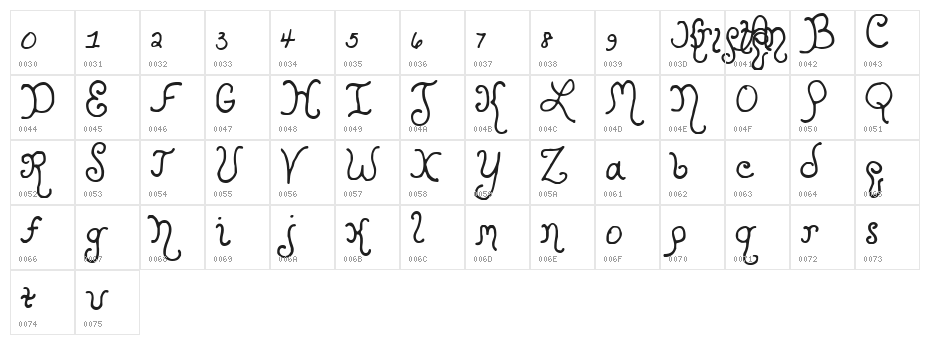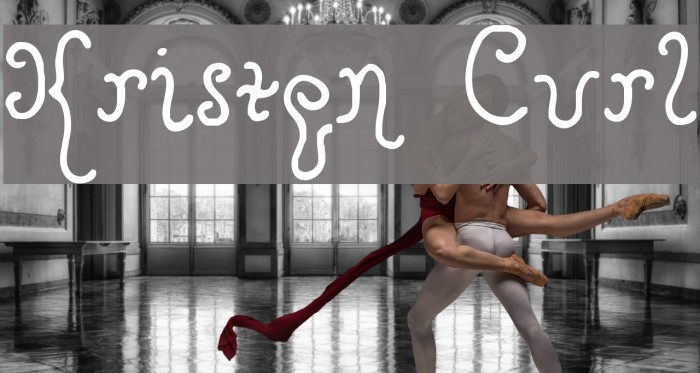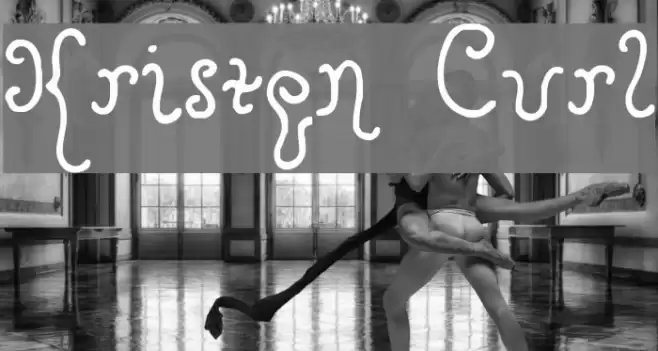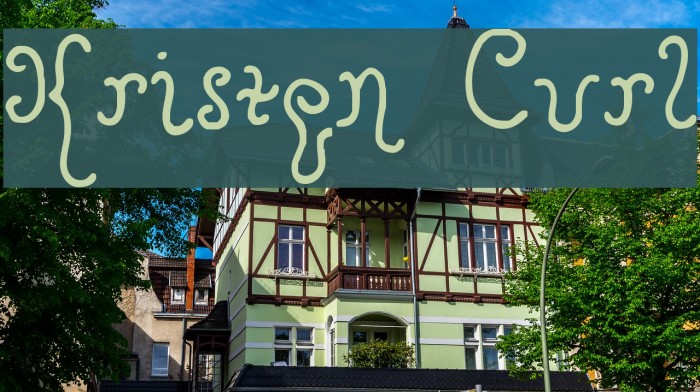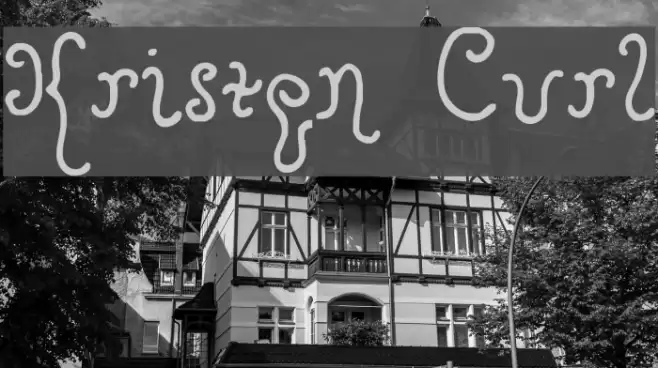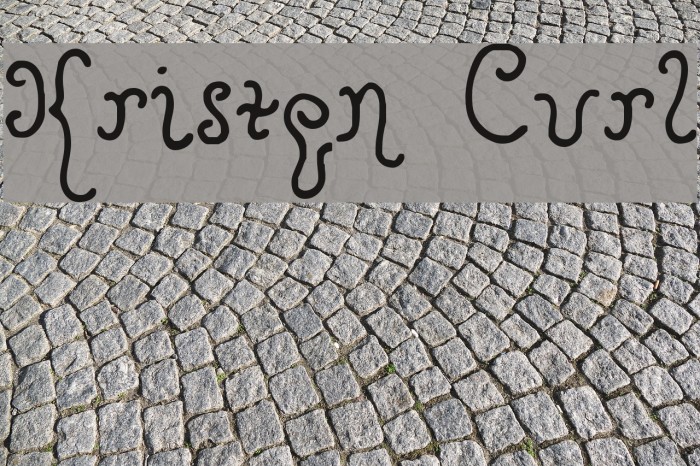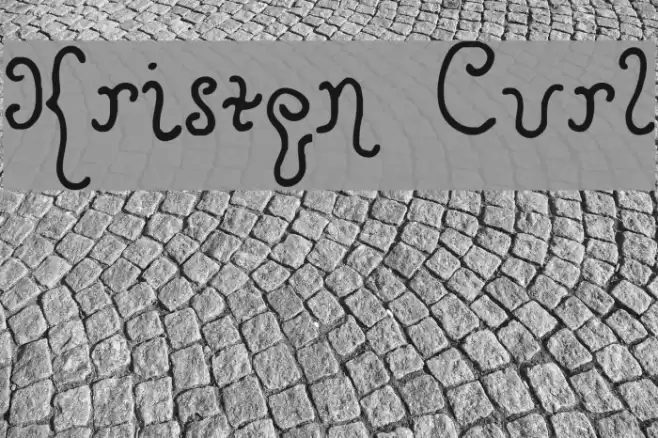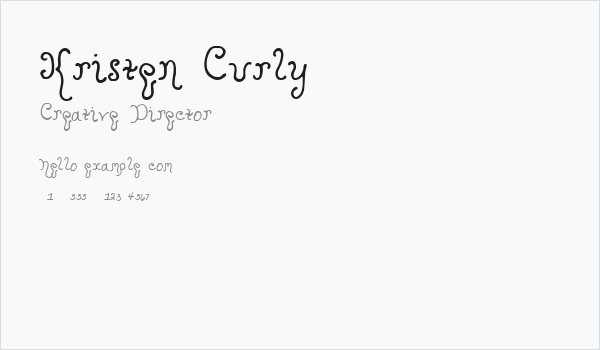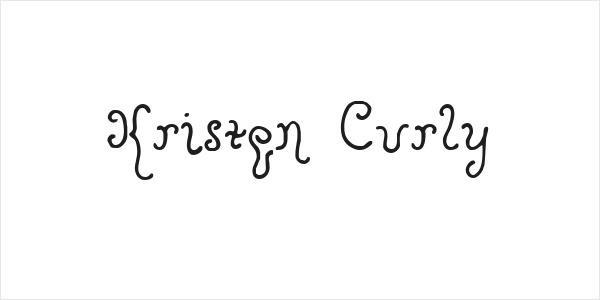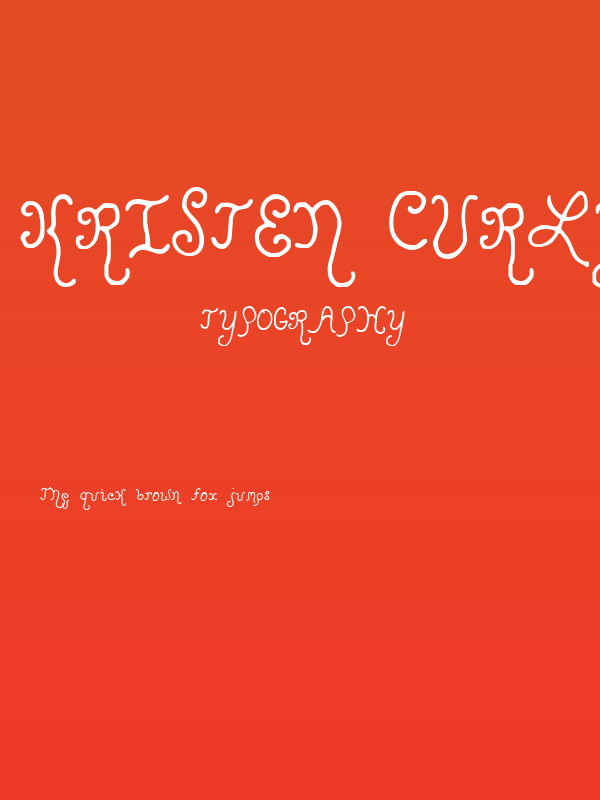
Kristen Curly Font
Kristen Curly Description
This font features a playful and whimsical design, characterized by its curly and flowing letterforms. The uppercase and lowercase letters exhibit a consistent style with loops and swirls that give the font a lively and dynamic appearance. The numbers follow the same aesthetic, maintaining the curly theme throughout. The font's unique style makes it stand out, adding a touch of fun and creativity to any project. Its legibility is maintained despite the decorative elements, making it suitable for various applications.
| Overall Style | Whimsical |
| Proposed Projects | Ideal for children's books, greeting cards, playful branding, and creative invitations. |